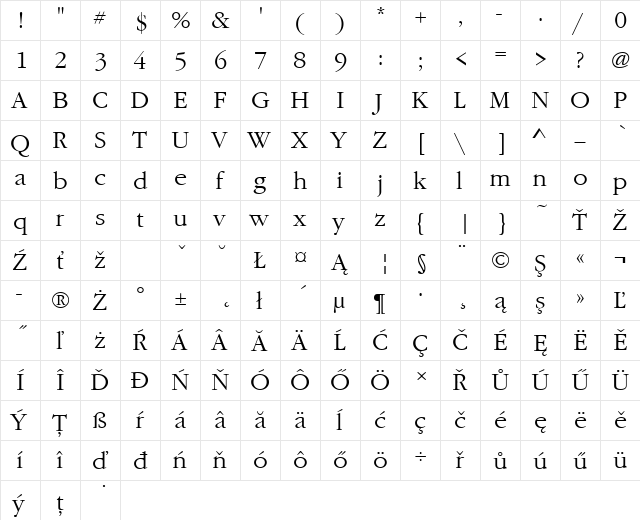
GaramondItcTEELig Regular
Design Context for GaramondItcTEELig Typeface
GaramondItcTEELig is a composed and adaptable typeface that performs quietly and consistently across a wide range of design contexts.